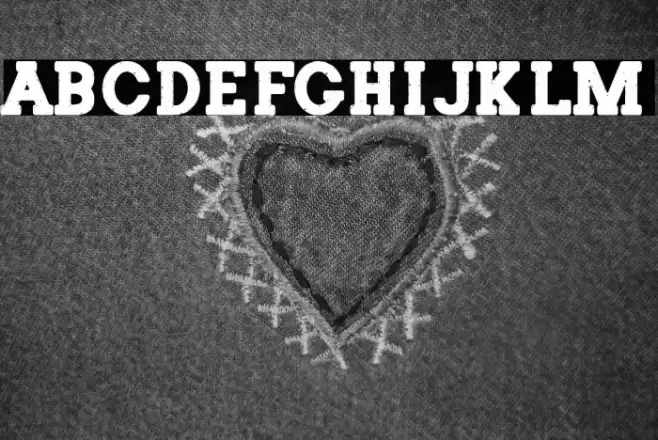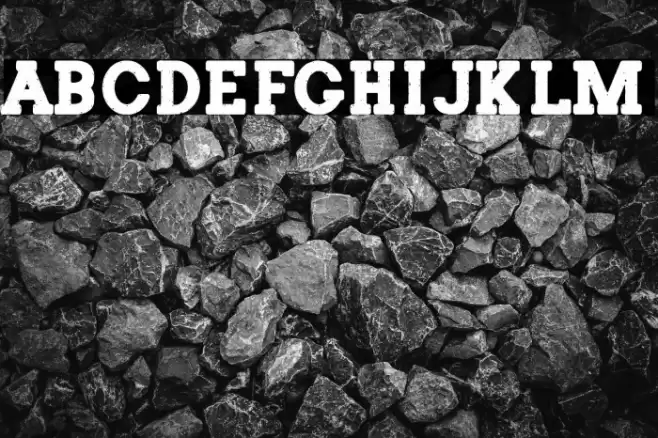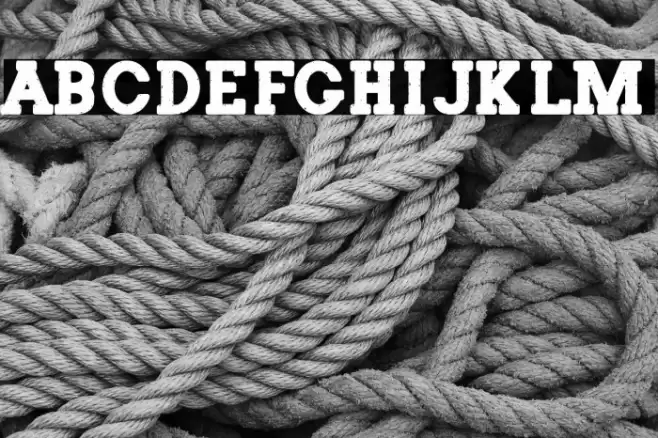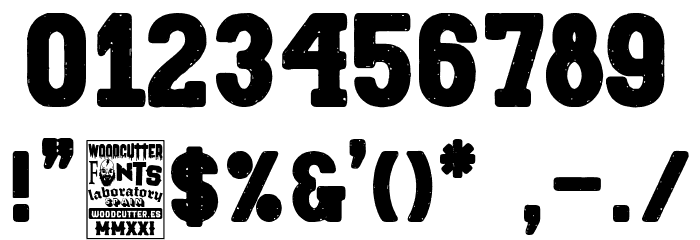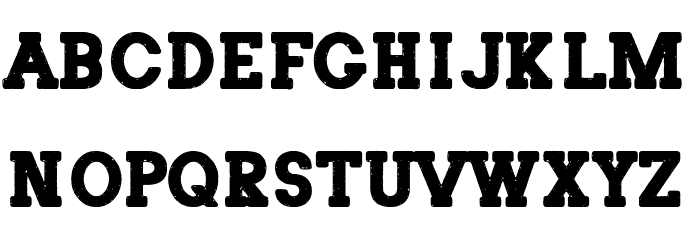
The Poster Serif Font
The Poster Serif Description
This font exhibits a bold and robust design with a strong serif presence, giving it a classic and authoritative appearance. The characters are uniformly bold, with thick strokes that convey a sense of strength and stability. The serifs are pronounced, adding a touch of elegance and tradition to the overall look. The spacing between characters is tight, which enhances the compact and impactful nature of the font. The numbers and special characters maintain the same boldness, ensuring consistency across all elements. This font is ideal for making a strong visual statement.
A bold, serif font with a classic and authoritative style from Uncategorized fonts.
- Font: The Poster Serif
- Proposed Projects: Ideal for posters, headlines, branding, and any project requiring a strong, impactful typeface.
- Character Spacing: Tight
- Overall Style: Classic